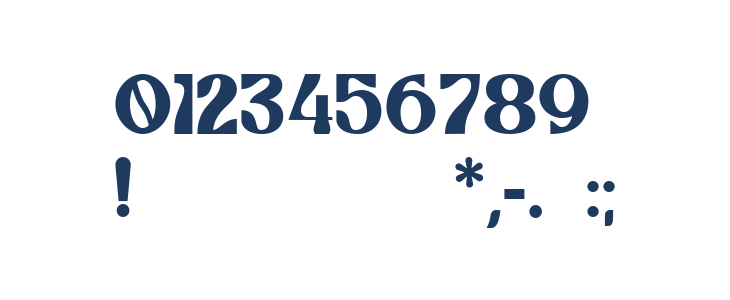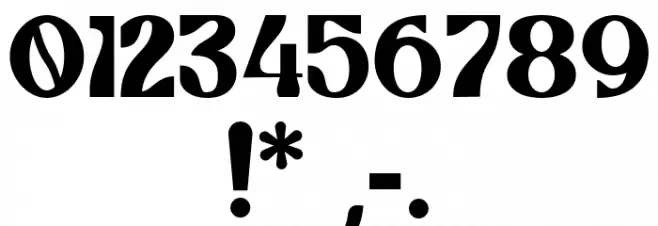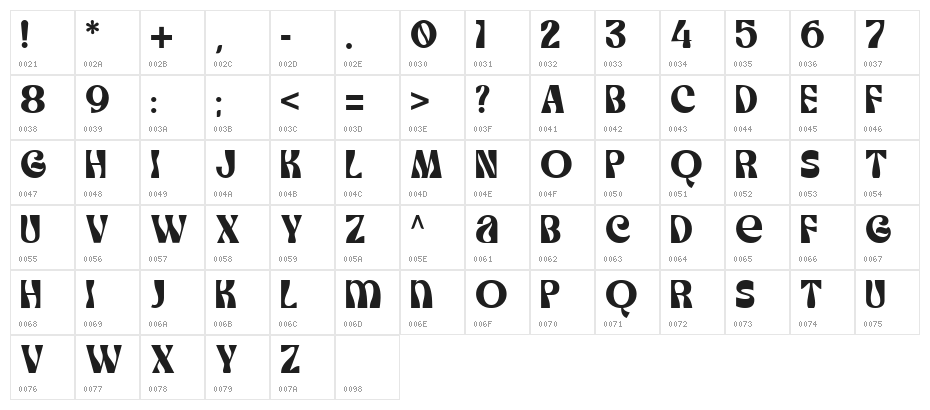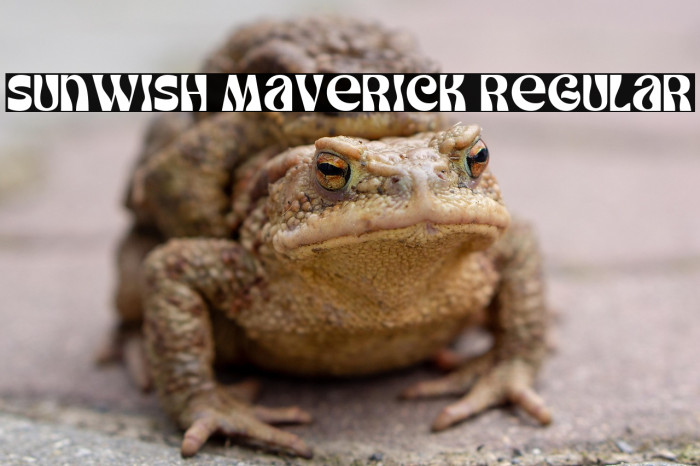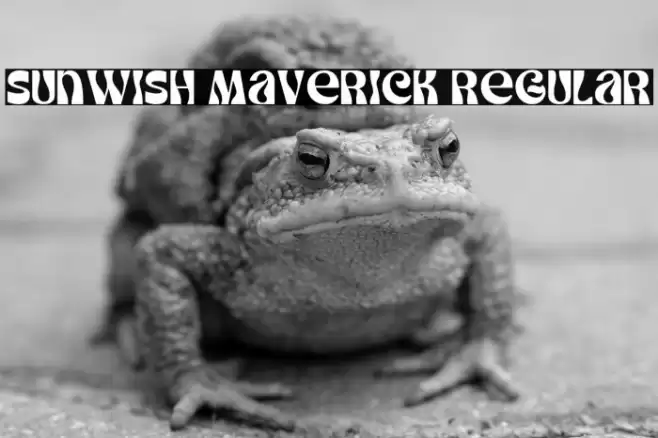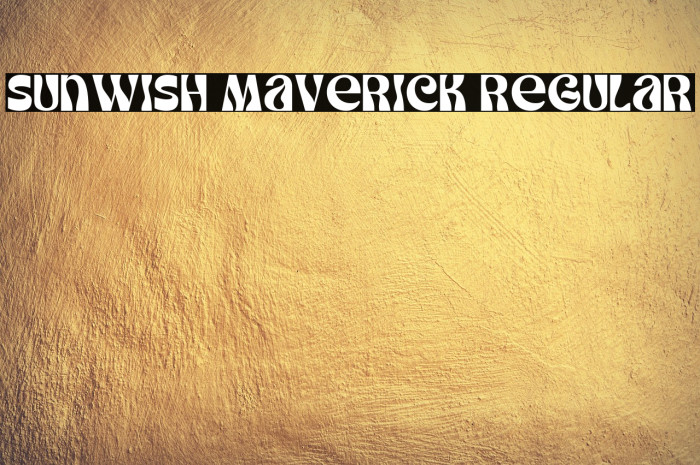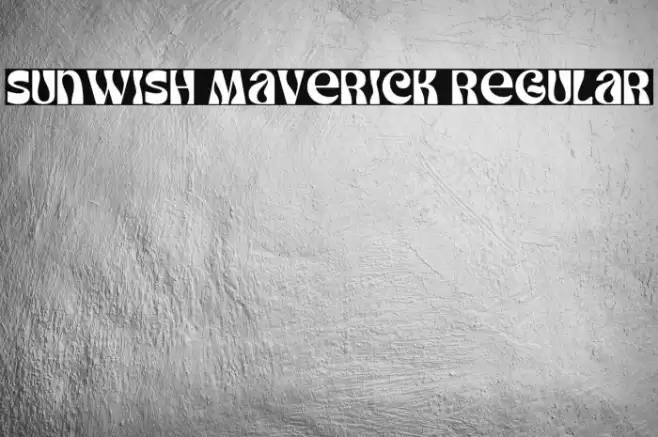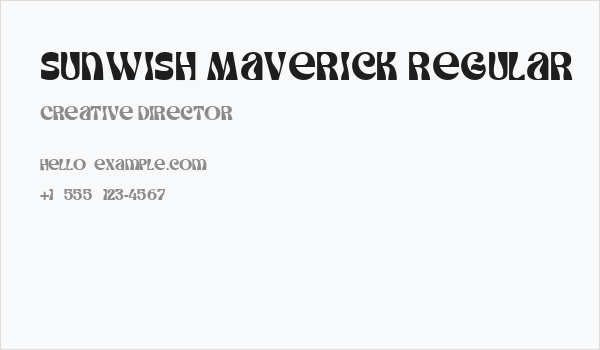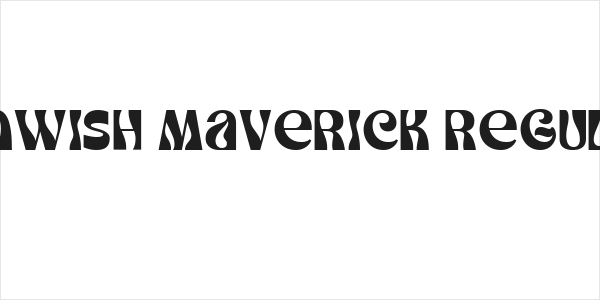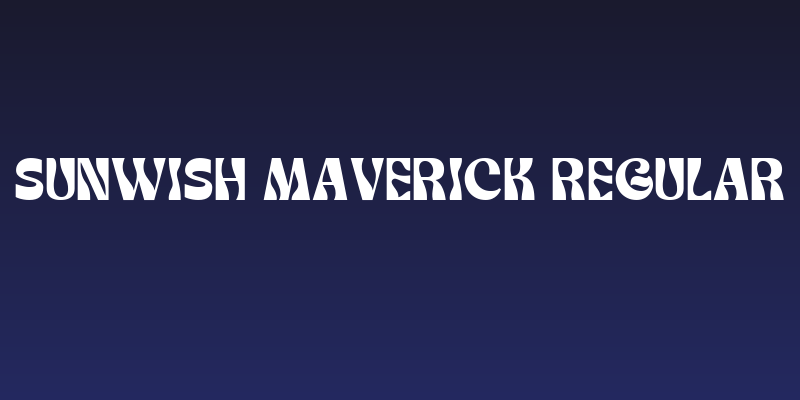
Sunwish Maverick Regular Font
Sunwish Maverick Regular Description
This font features a bold and dynamic design with a unique blend of geometric shapes and curves. The uppercase letters are characterized by strong, angular lines and a sense of movement, while the lowercase letters maintain a playful yet structured appearance. The numbers are equally bold, with a consistent style that complements the letters. Special characters are designed with the same attention to detail, ensuring a cohesive look across all elements. The font's distinct style makes it ideal for projects that require a strong visual impact.
| Proposed Projects | Ideal for branding, poster design, and headlines where a bold statement is needed. |